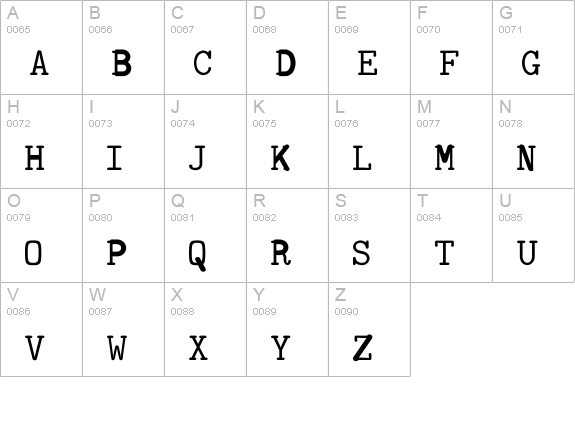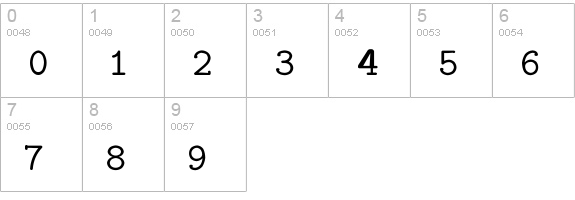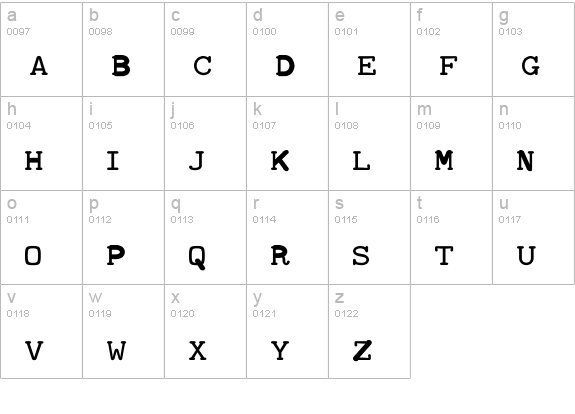
CM_TypewriterCaps Regular is the standard, neutral variant in the CM_TypewriterCaps typeface family \xE2\x80\x94 well suited to general body text, paragraphs, and standard typographic work.
CM_TypewriterCaps Regular font is a classic and timeless typeface that brings a touch of nostalgia to any design project. With its clean lines and distinctive character shapes, this font is perfect for adding a vintage aesthetic to your work. Whether you're creating a retro poster, designing a book cover, or crafting a stylish logo, CM_TypewriterCaps Regular font is sure to make a statement. What makes this font even more appealing is that it is available for free download at FontsMarket.com. This means you can enjoy all the charm and versatility of CM_TypewriterCaps Regular font without having to spend a penny. So why wait? Head over to FontsMarket.com today and elevate your designs with this fantastic font.